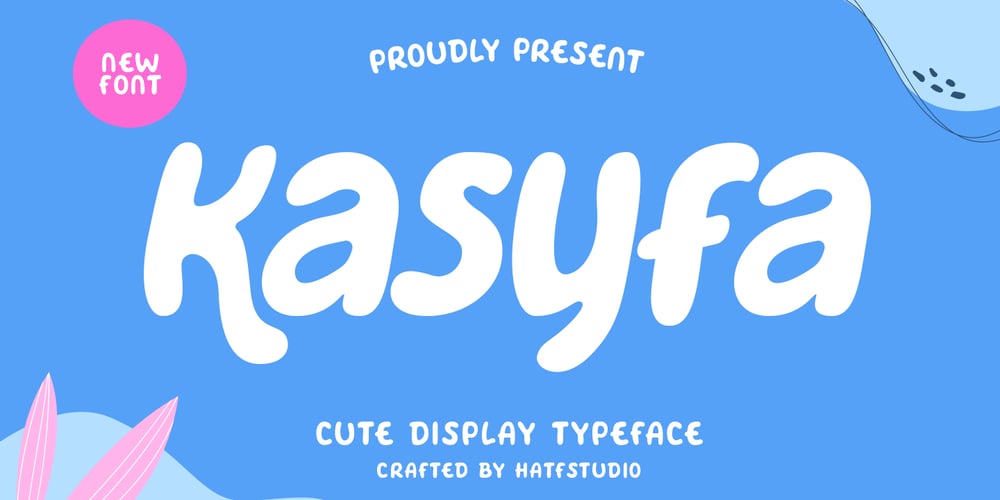
Kasyfa Font Family was designed by Asep Rendi and published by Hatftype. Kasyfa contains 1 styles and family package options. KASYFA is a cute display font. Is a work of typographic art that brings playfulness and warmth to every character. With a cute and adorable design, filled with tenderness and playfulness, each letter is an expression of joy and innocence.This display font style brings a friendly feel and is suitable for projects that want a touch of playfulness. With its gentle curves and understated design, this font provides a unique and inviting feel, making it the perfect choice for projects that require a touch of beauty and innocence.From titles in children’s books to cute greeting card designs, cute display fonts take a leading role in conveying messages with warmth and happiness. They are not just letters, but a tool to bring a positive and fun feel to any design.